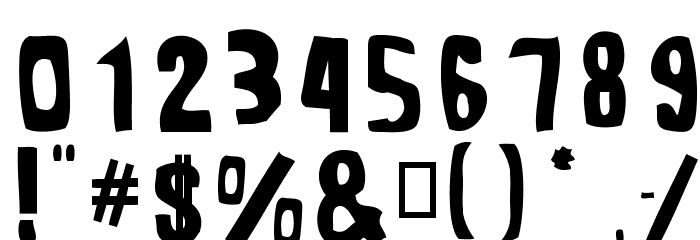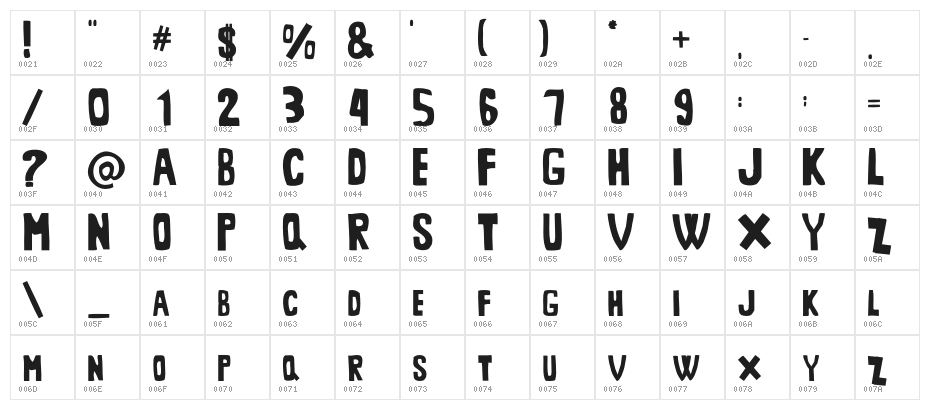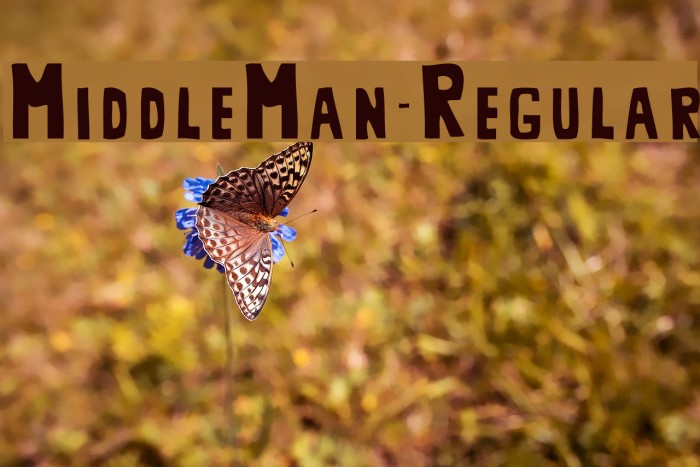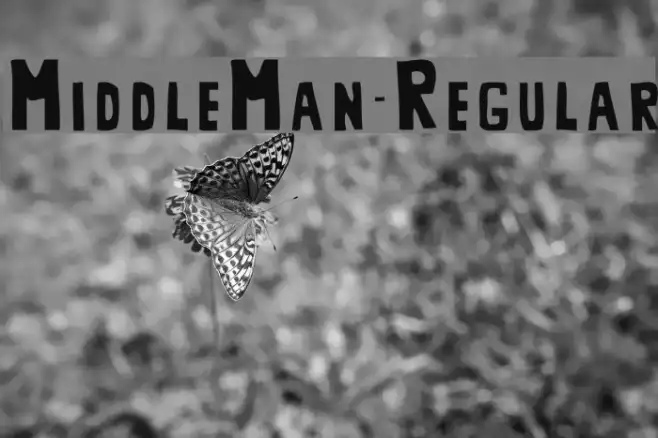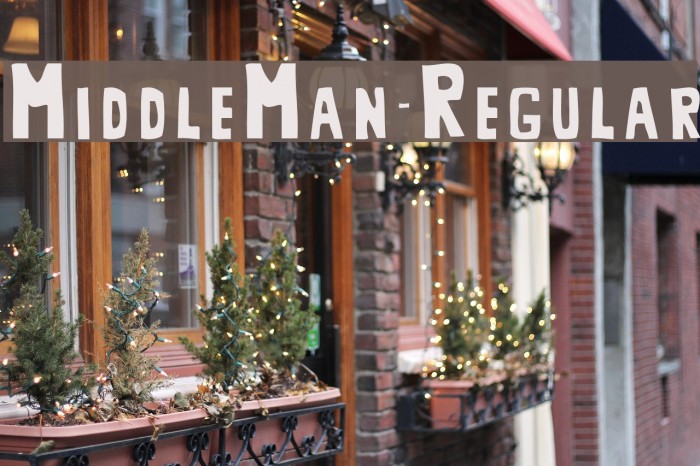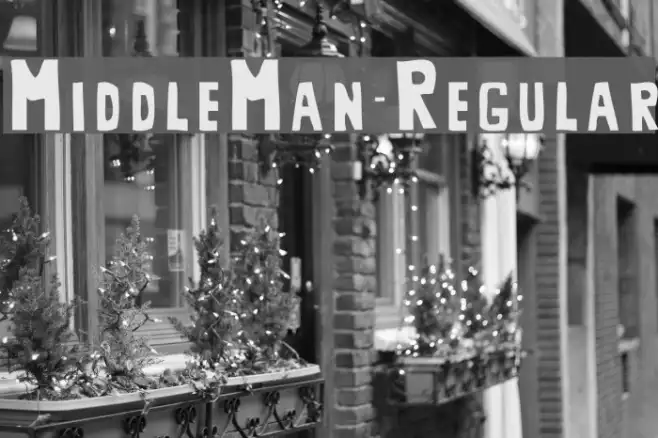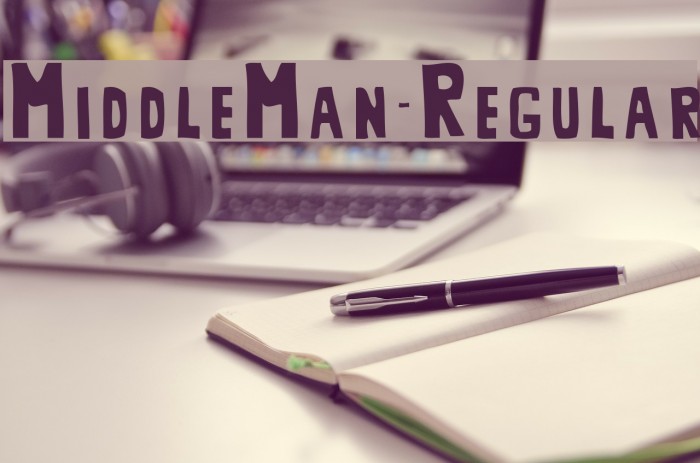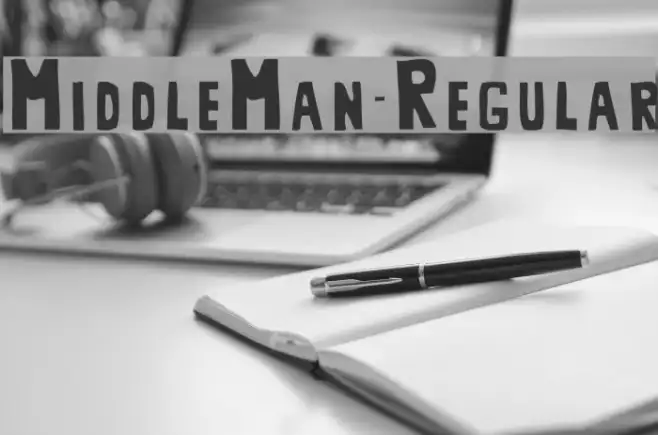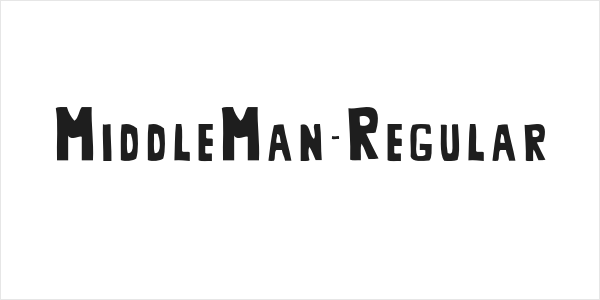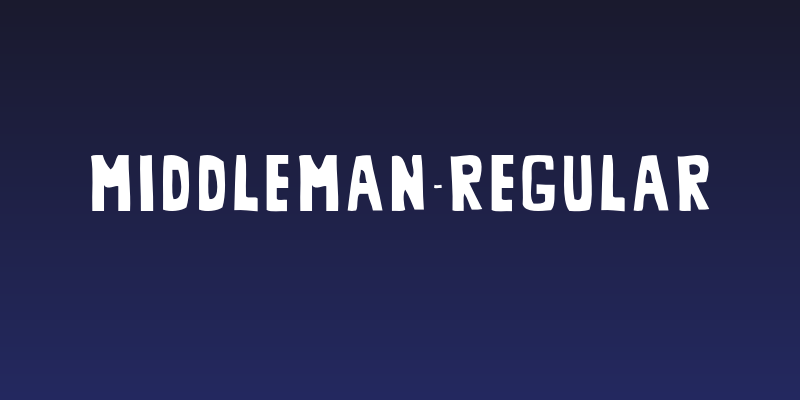
MiddleMan-Regular Font
MiddleMan-Regular Description
This font features a bold and playful design with a hand-drawn aesthetic. The characters are slightly irregular, giving them a whimsical and informal appearance. The uppercase letters are robust and dynamic, while the lowercase letters maintain a consistent style that complements the uppercase. Numbers and special characters follow the same playful theme, making the font suitable for creative and casual projects. The strokes are thick and consistent, providing a strong visual impact. This font is ideal for projects that require a fun and engaging look.
Overall StylePlayful, Hand-drawn
Proposed ProjectsIdeal for children's books, posters, playful branding, and creative advertising.